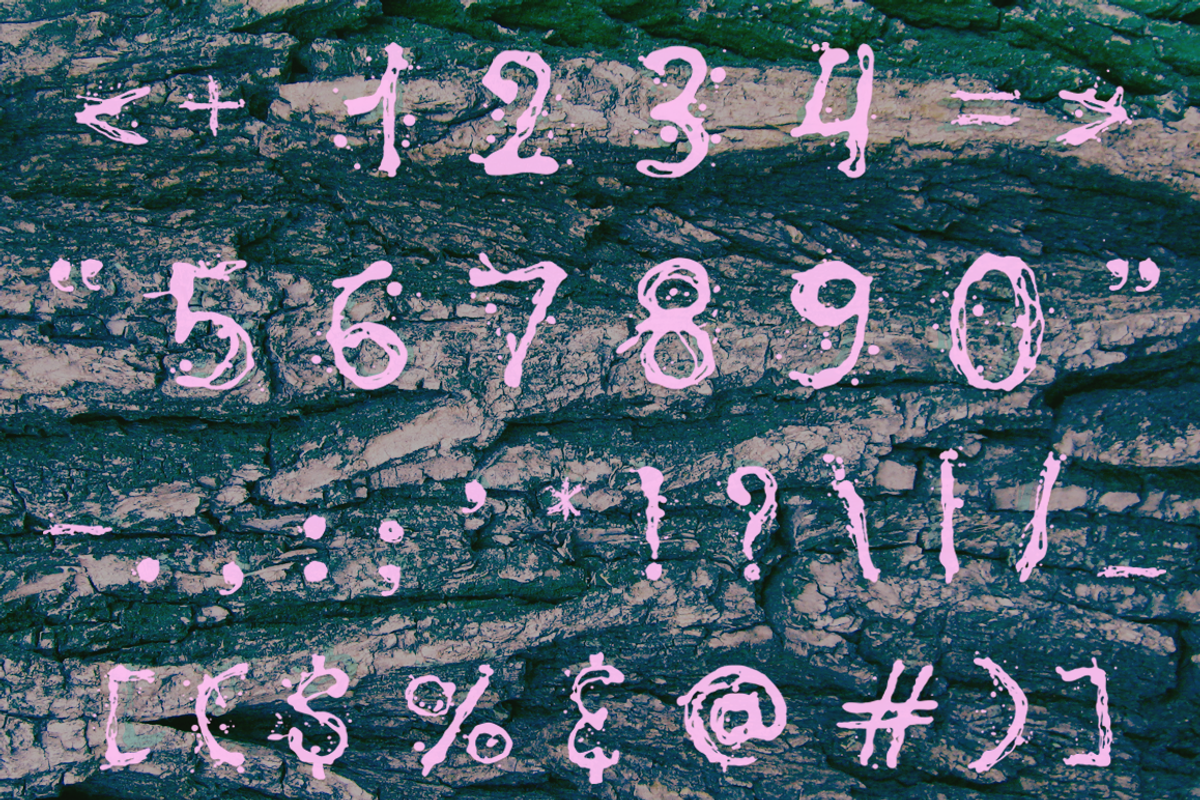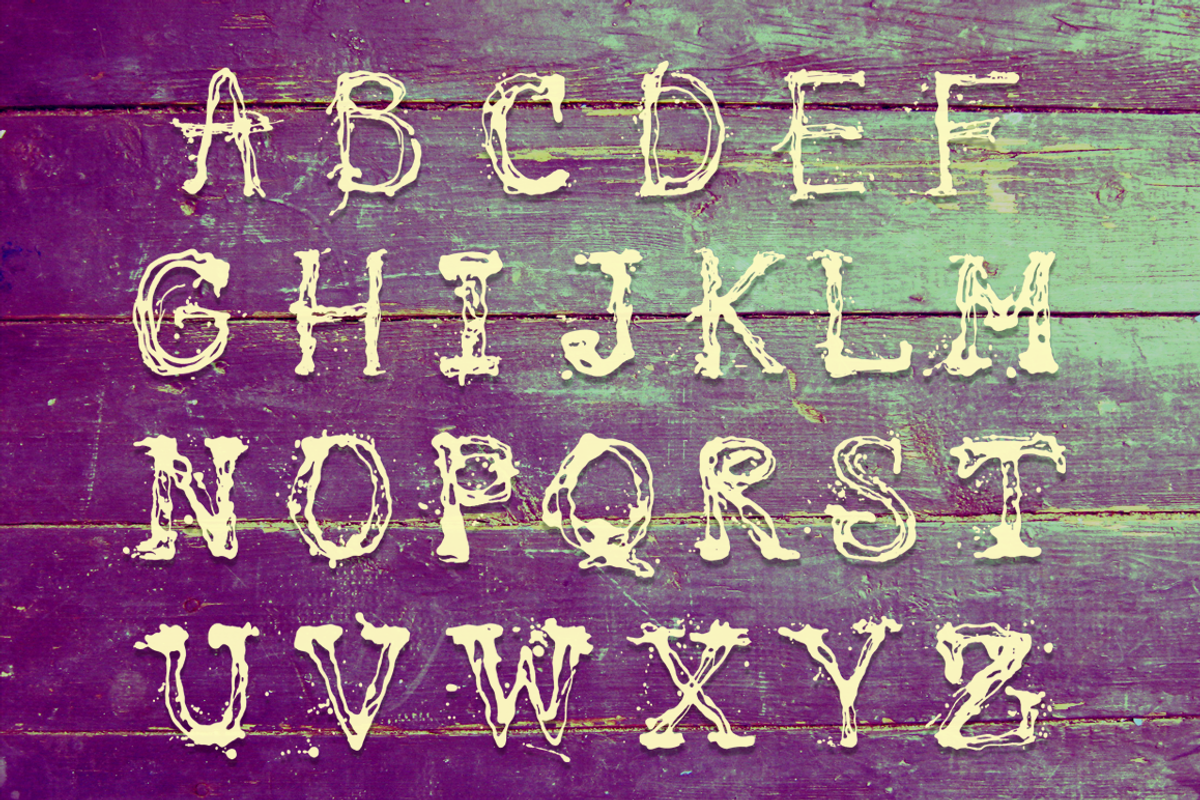
Express Yourself Font + Bonus
Express Yourself Font + Bonus by Asyndrom is a font selected for branding, posters, packaging, typography.
Why Express Yourself Font + Bonus is worth a look
Express Yourself Font + Bonus by Asyndrom fits naturally into Branding, posters, packaging, typography.